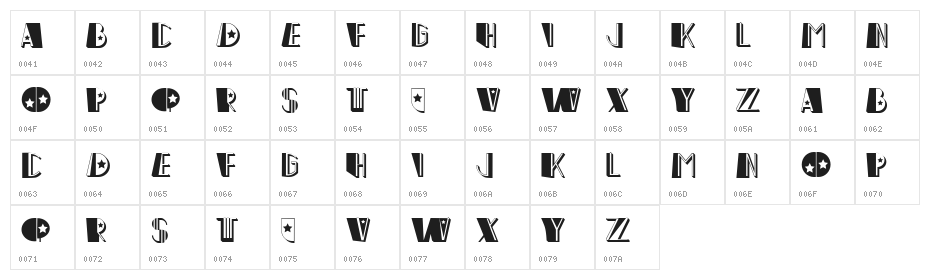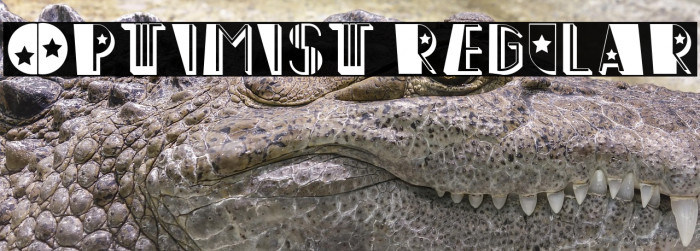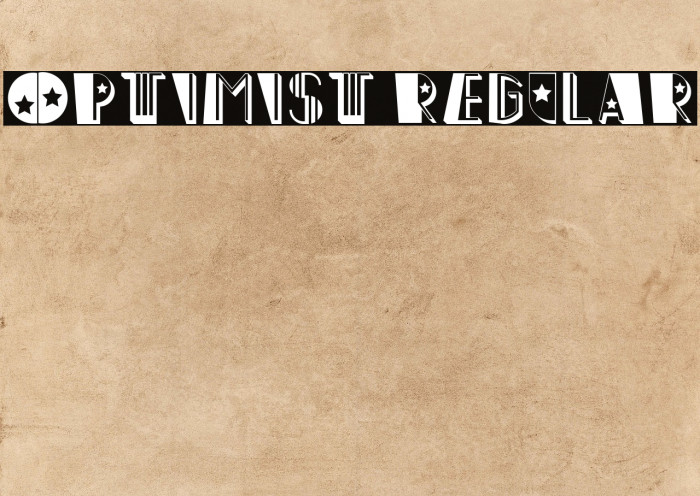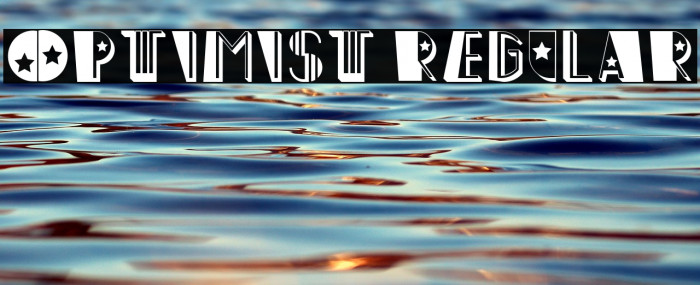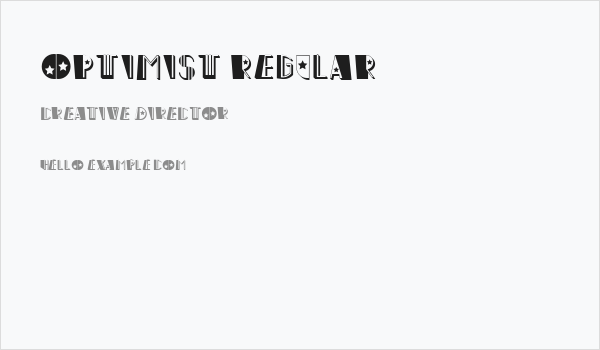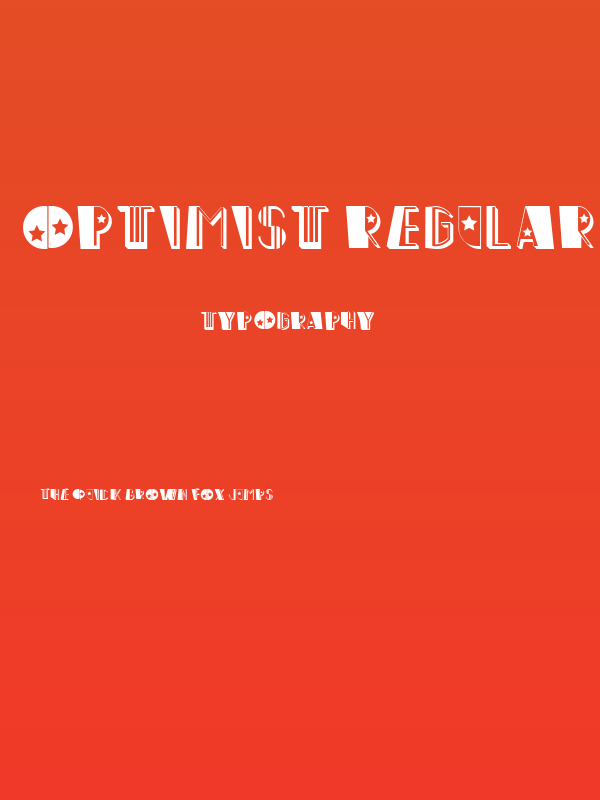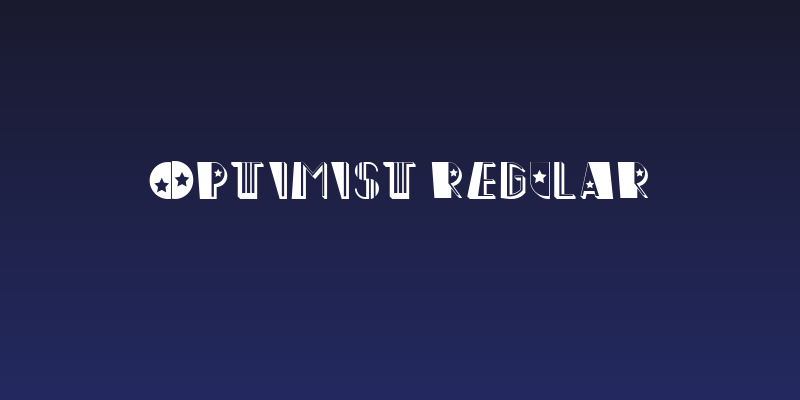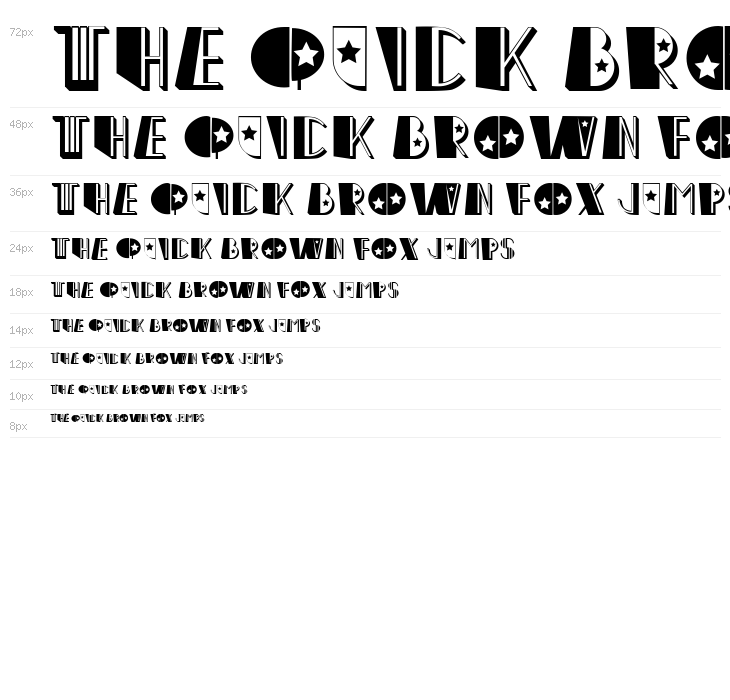
Optimist Regular Font
Optimist Regular Description
This font features a bold and playful design with a unique star motif integrated into each character. The letters are primarily uppercase, with a strong geometric influence and a mix of solid and outlined forms. The style is reminiscent of retro and vintage aesthetics, making it eye-catching and ideal for creative projects. The use of stars adds a whimsical and fun element, while the boldness ensures visibility and impact. This font is perfect for projects that require a standout, decorative typeface with a touch of nostalgia.
| Proposed Projects | Ideal for posters, logos, children's books, and any project needing a fun, decorative touch. |